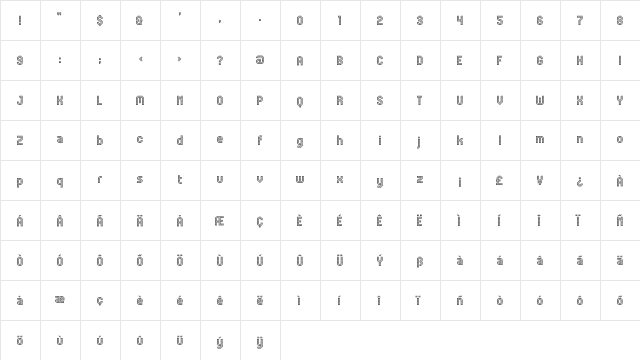
JD Digital Regular
| Designer | Jecko Development |
Design Context for JD Digital Typeface
JD Digital has a distinctly futuristic character, with geometric precision and clean angles that feel at home in technology, gaming, and sci-fi contexts.
Pro Tip: Use JD Digital in combination with a neutral sans for body text. Let it define the brand voice in headlines while keeping reading comfortable elsewhere.